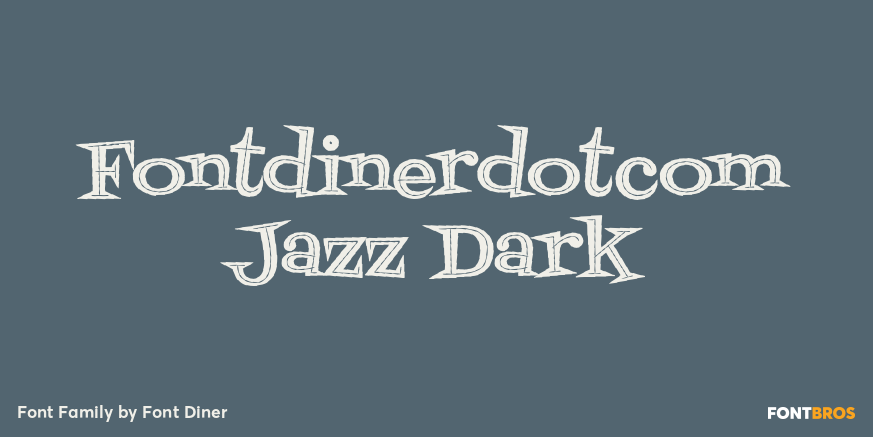
Fontdinerdotcom Jazz Dark
About Fontdinerdotcom Jazz Dark
So, you dig the hep sounds of Miles Davis planted on a chair in a smokey 1950s Jazz Club? Sounds like you\’re a fan of Dark Jazz! Turn up the heat cause this cool number will make your microchips frosty!